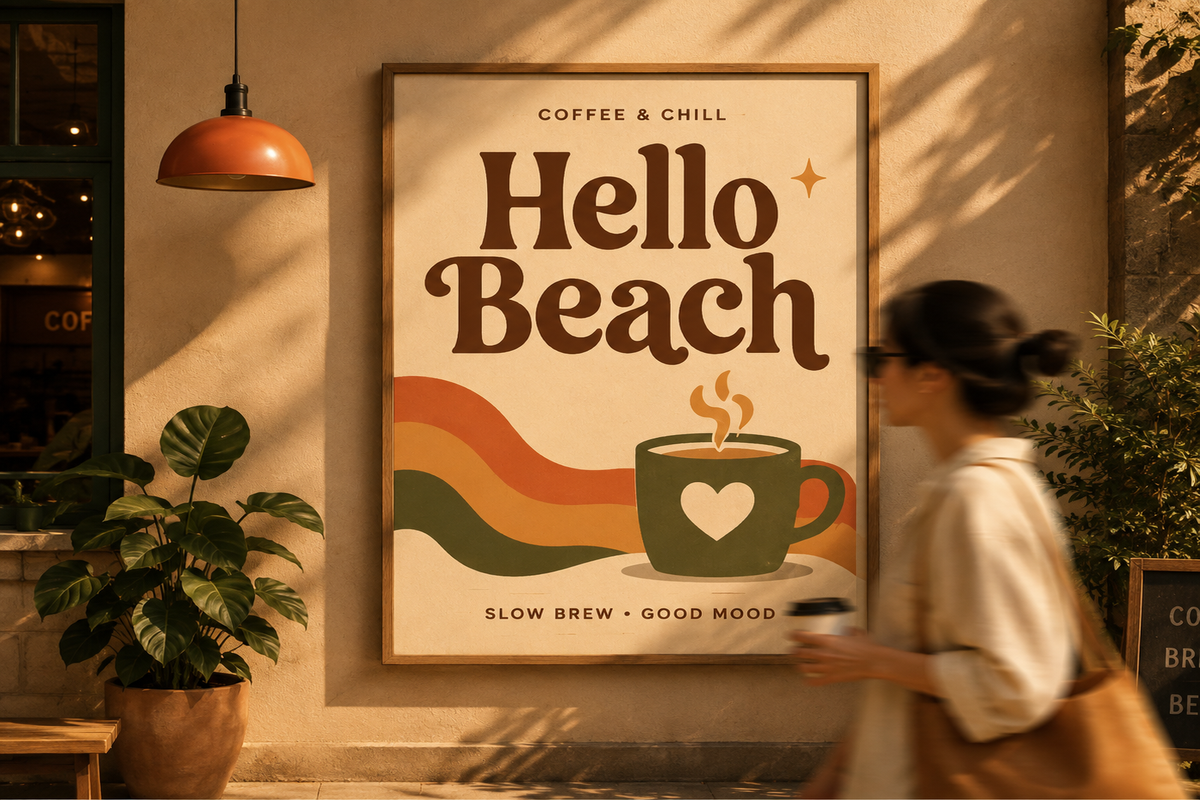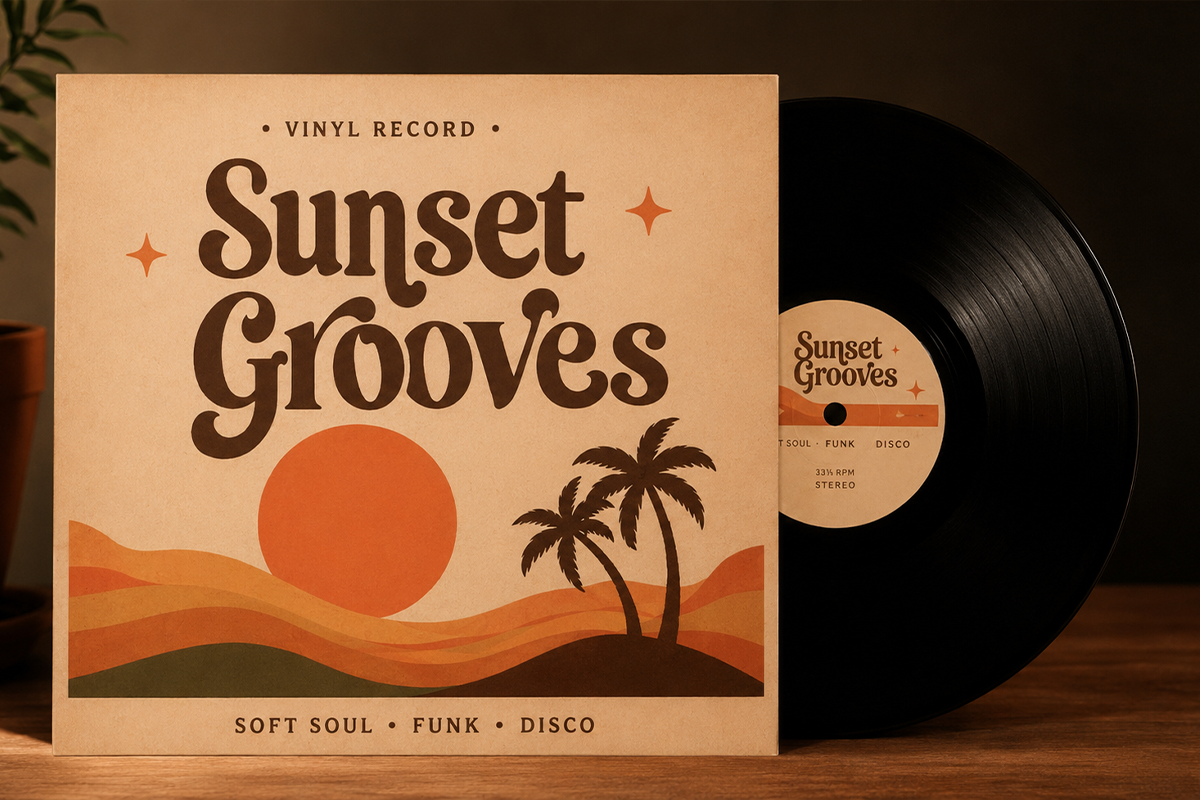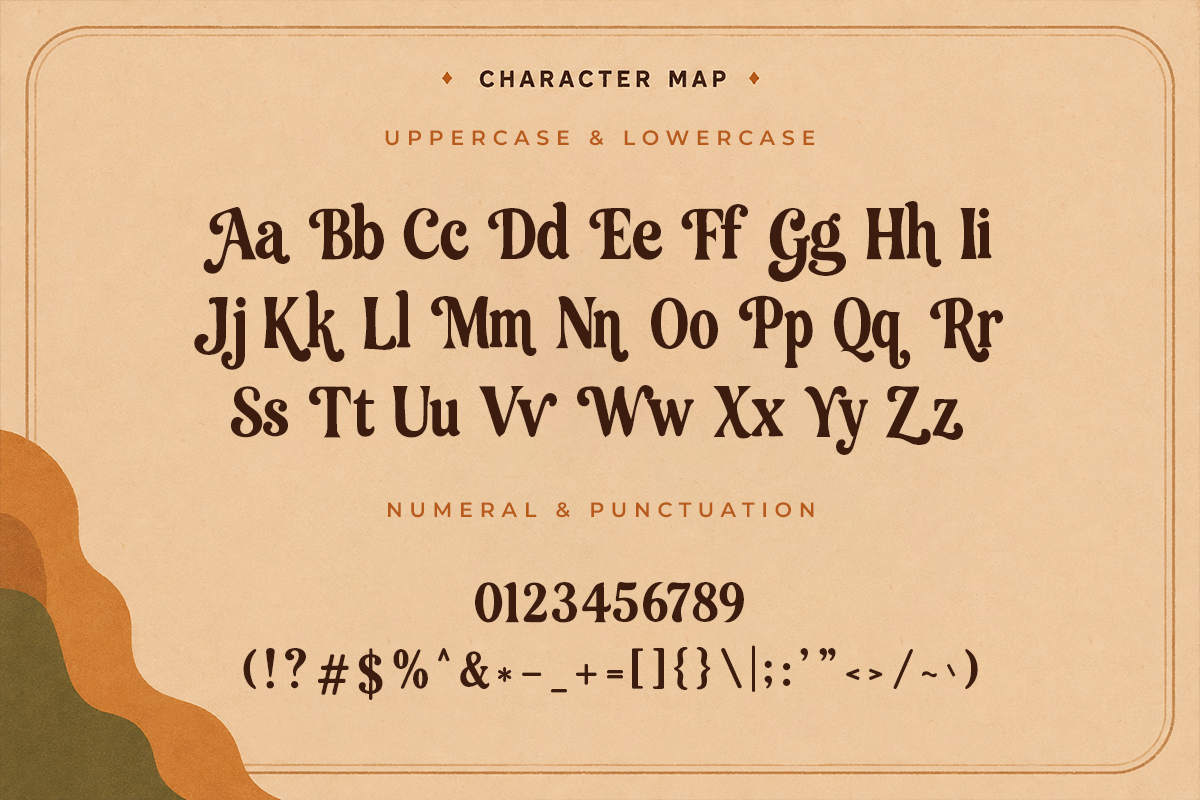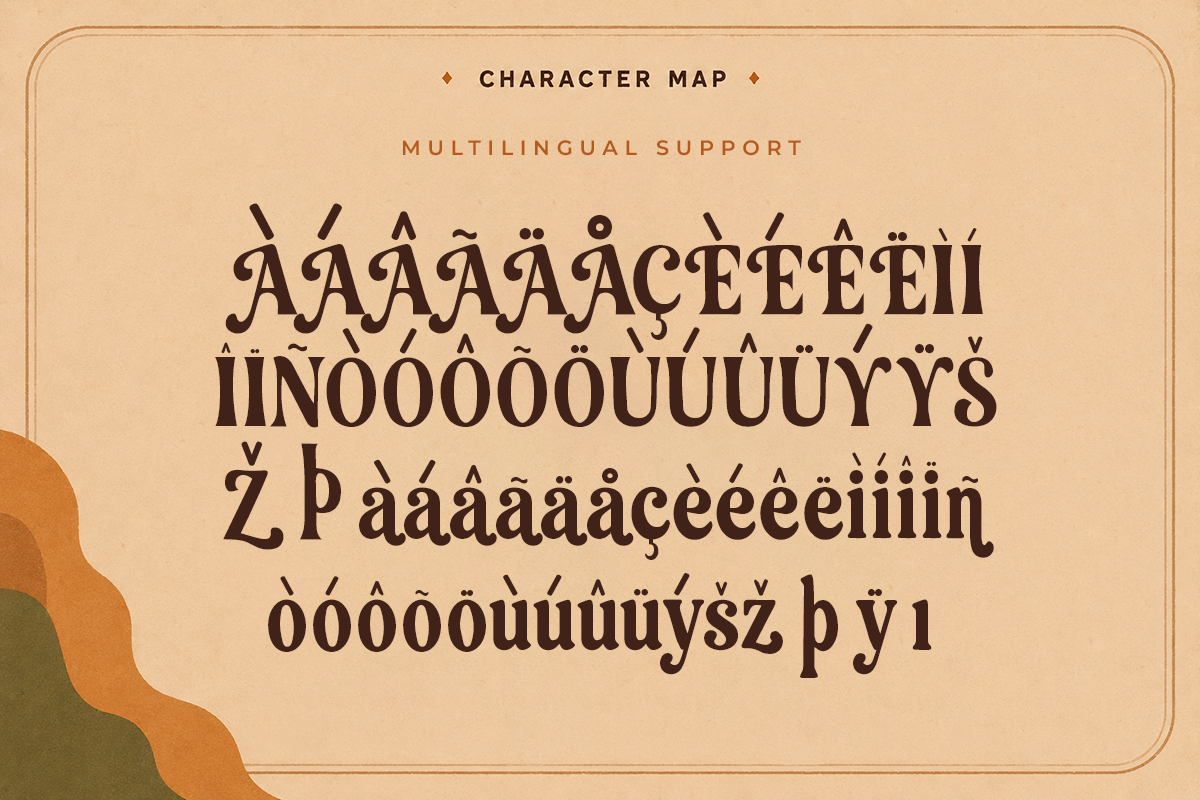
Groovelle is a retro-inspired display font filled with smooth curves, flowing shapes, and a warm vintage personality. Its bold letterforms and expressive proportions capture the unmistakable spirit of 1970s design, bringing nostalgic charm into a fresh and contemporary setting.
Designed to feel groovy, stylish, and effortlessly playful, Groovelle combines soft organic curves with confident typography. Its distinctive forms give headlines and logos a strong personality while maintaining an elegant visual rhythm that feels both retro and modern.
Groovelle is perfect for retro branding, fashion labels, music artwork, posters, packaging, café identities, lifestyle products, book covers, social media graphics, merchandise, editorial layouts, and vintage-inspired advertising.
Inspired by 70s interiors, vinyl culture, warm earthy palettes, vintage magazines, and mid-century aesthetics, Groovelle brings a timeless groove and nostalgic character to every creative project. Our Serif font collection is compatible to be used as; Fonts fonts, Canva fonts, font fonts, and adobe fonts. They also work as Windows font and Apple font. For your social media needs, you can use and install fonts in our Serif font collection to use as Instagram fonts, Facebook fonts, and Twitter fonts.For our customers, we provide a collection of The Best Decorative Fonts, each with its own unique styles and characteristics, so that our customers can create any design they want. We know what our clients love! That is why we prepare everything you may need in one simple downloadable package for you. Our easy-to-grab package contains all of the files you will ever need to create beautiful typography!